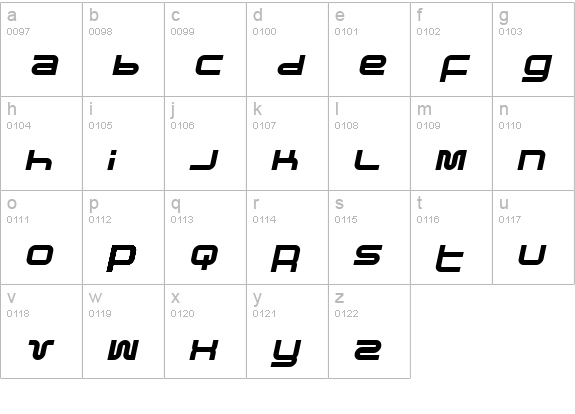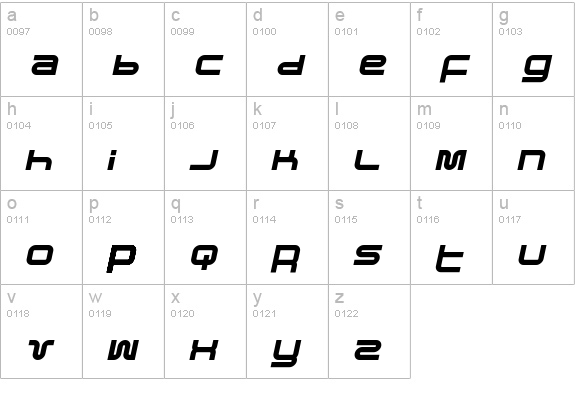
Pfuk Italic Font Details
Pfuk Italic is a distinctive, italic variant in the Pfuk typeface family \xE2\x80\x94 well suited to design and typography projects.
Introducing Pfuk Italic, a captivating font that effortlessly merges elegance with a touch of whimsy. With its unique and graceful curves, this font is perfect for adding a touch of sophistication to any project. Whether you're designing a logo, creating invitations, or crafting beautiful typography, Pfuk Italic is sure to leave a lasting impression. This font's versatile nature allows it to be seamlessly incorporated into various design styles, from modern and minimalistic to vintage and retro. Its italicized form adds a sense of dynamism and movement, making it ideal for projects that require a touch of flair. But what sets Pfuk Italic apart is not just its stunning aesthetics; it's also its availability. This font is freely available to download at FontsMarket.com, ensuring that anyone can access this beautiful typeface without any cost. This generous offering opens up a world of creative possibilities, allowing designers, artists, and enthusiasts alike to explore and experiment with Pfuk Italic without limitations. So why wait? Discover the beauty and versatility of Pfuk Italic today. Download it for free at FontsMarket.com and unleash your creativity like never before. Let this font be the catalyst for your next design masterpiece, and watch as it effortlessly transforms your projects into works of art.